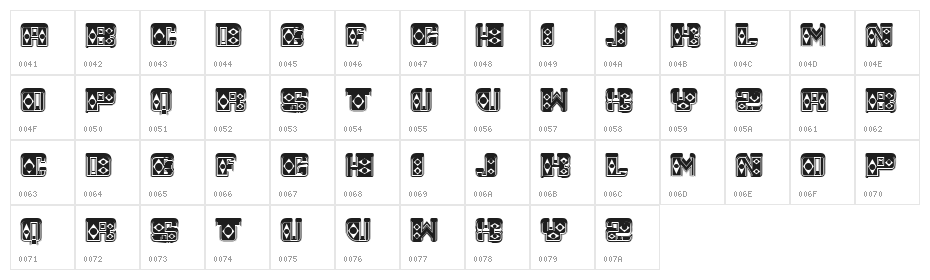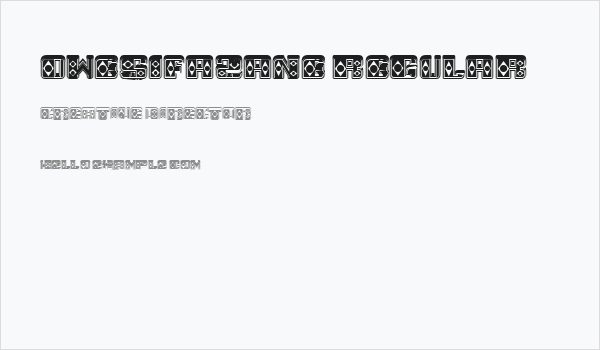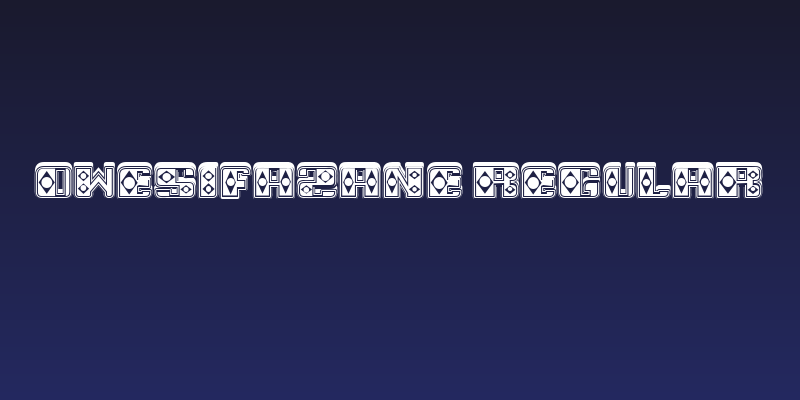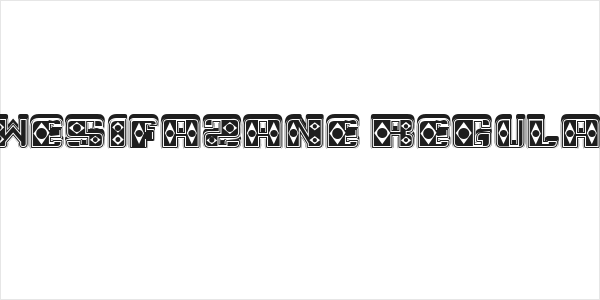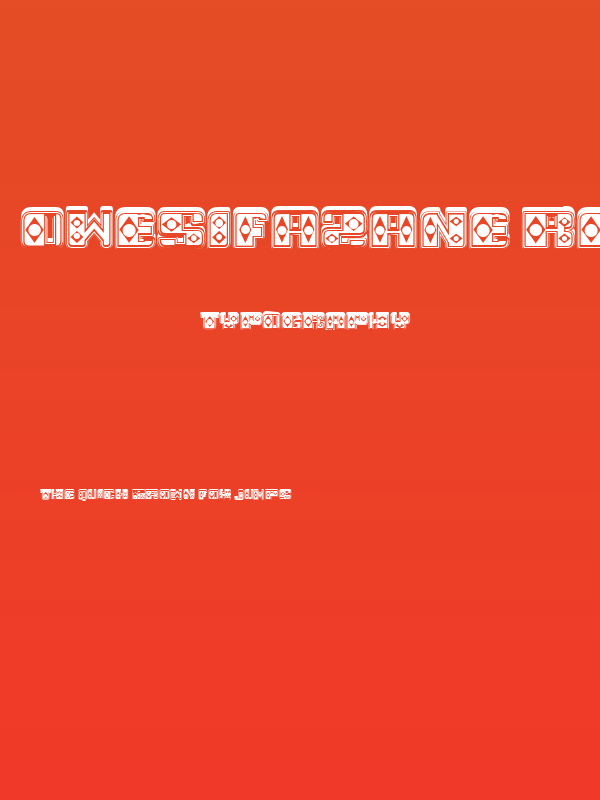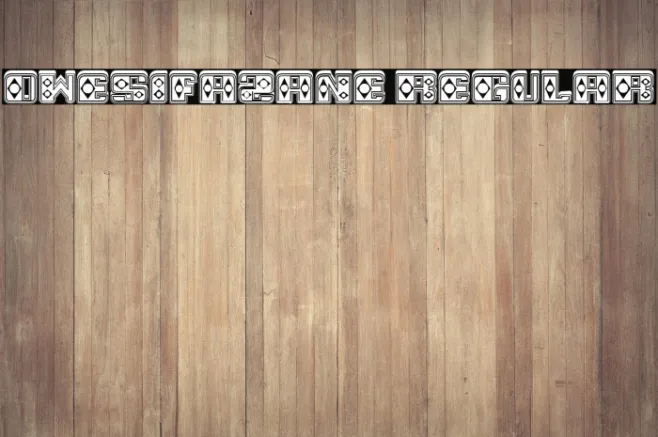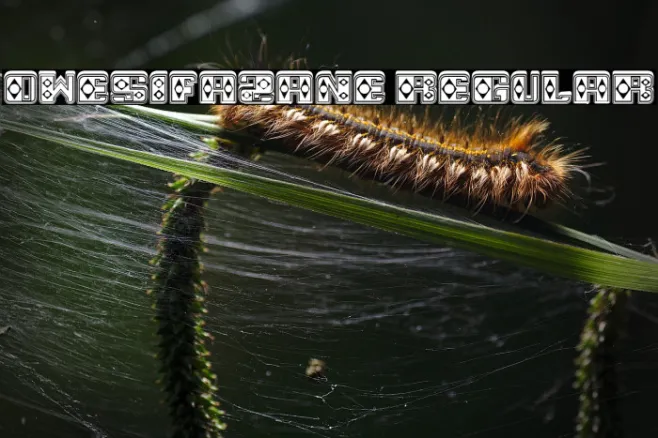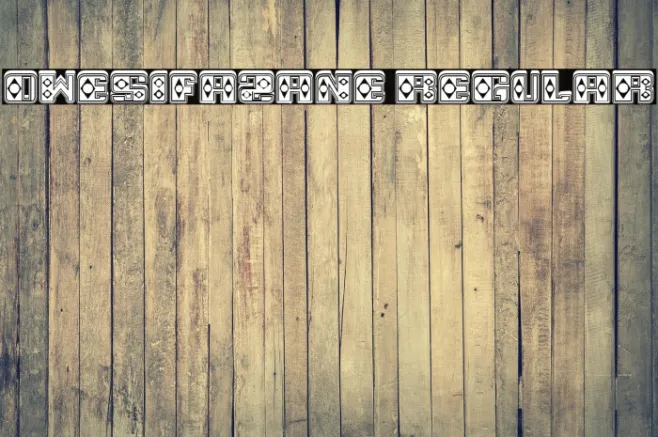
Owesifazane Regular Font
Owesifazane Regular Description
This font features a bold and decorative style with intricate geometric patterns embedded within each character. The letters are outlined with a thick black border, creating a striking contrast against the white interior. The design incorporates various shapes such as diamonds, circles, and lines, giving it a unique and artistic appearance. The uppercase and lowercase letters maintain a consistent style, while the numbers and special characters follow the same decorative theme. This font is visually complex, making it ideal for eye-catching designs.
| Proposed Projects | Ideal for posters, album covers, branding, and any project requiring a bold, artistic statement. |